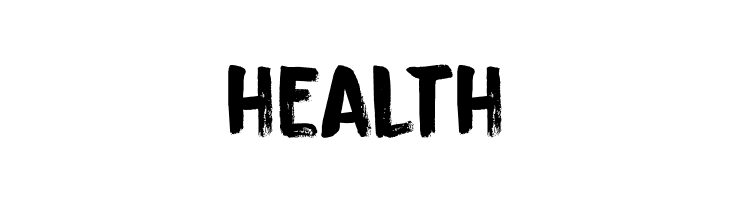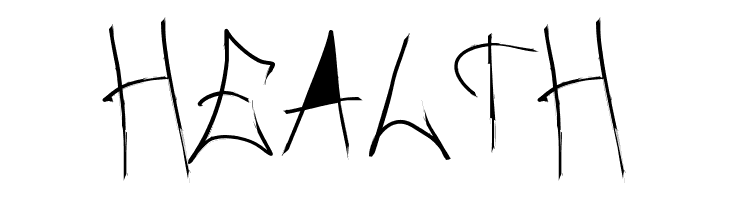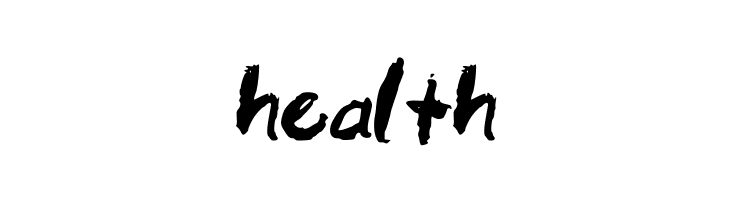
A bold, brush-style font with a playful, handwritten look.
A bold, brush-style font with an artistic and hand-drawn appearance.
A rustic, hand-drawn font with a textured, brush-like appearance.
A bold, brush-stroke font with a textured, hand-painted appearance.
A bold, dynamic brush-style font with expressive strokes and a sense of motion.
A rebellious, brush-stroke font with jagged edges and dynamic energy.
A bold, expressive brush-style font with dynamic strokes.
A bold, brush-style font with an expressive, handcrafted look.
A dynamic brush script font with fluid, organic strokes and a hand-crafted feel.
A bold, expressive brush-style font with dynamic, hand-painted strokes.